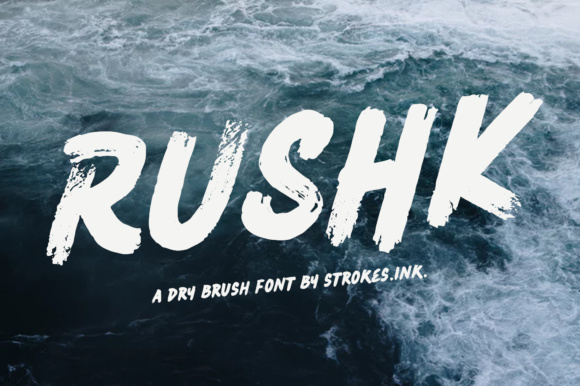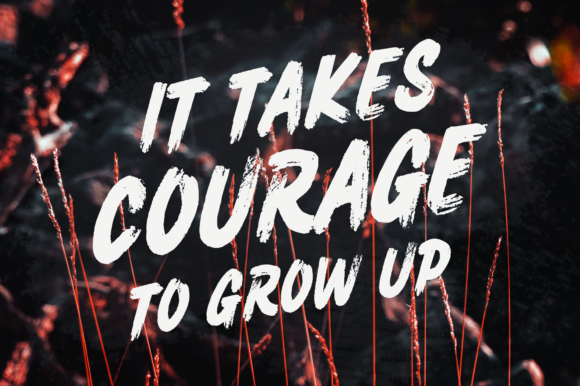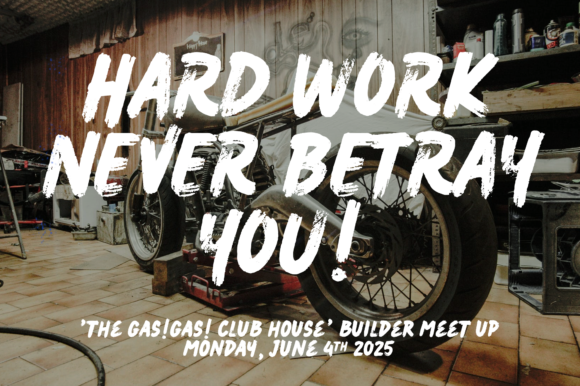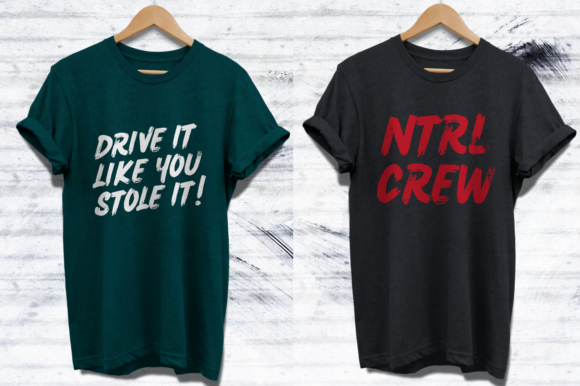
Rushk Font
Rushk is a beautiful unique display font, perfect for use in relaxed and hip design projects. This dry brush sans serif looks great as a headline and works to give your designs a gritty feel.